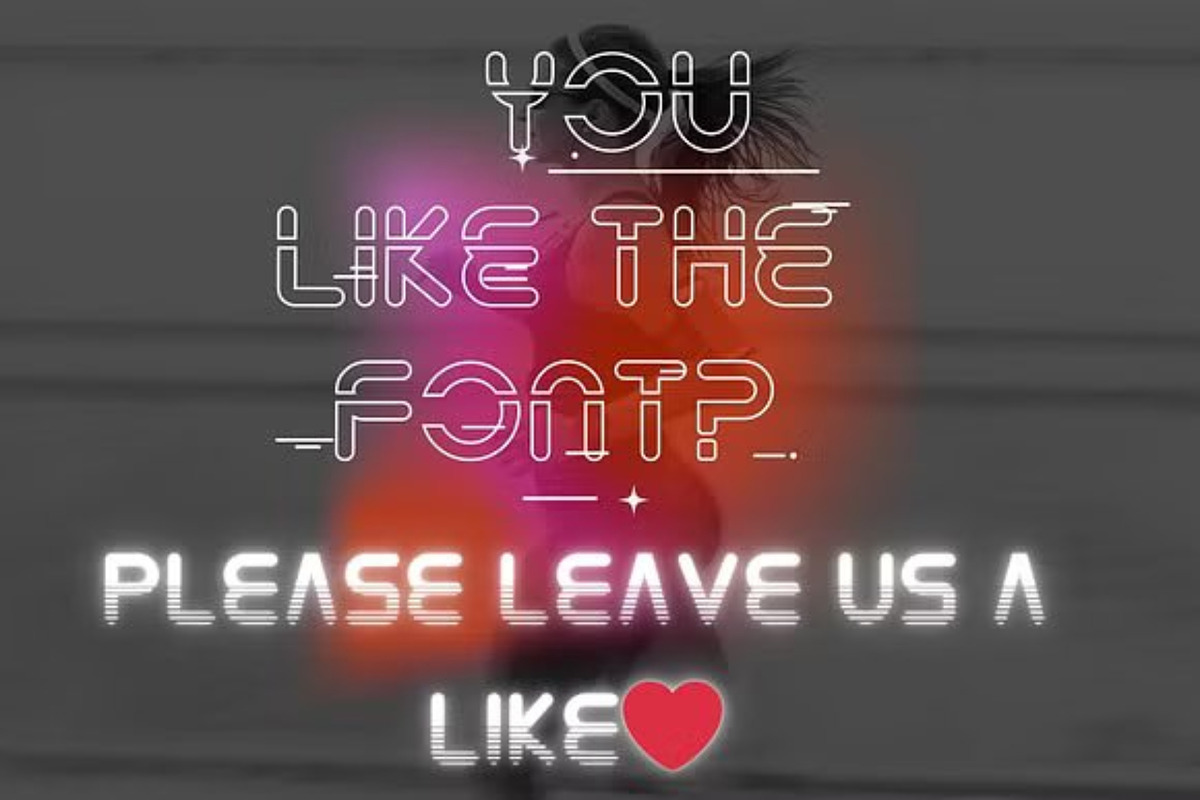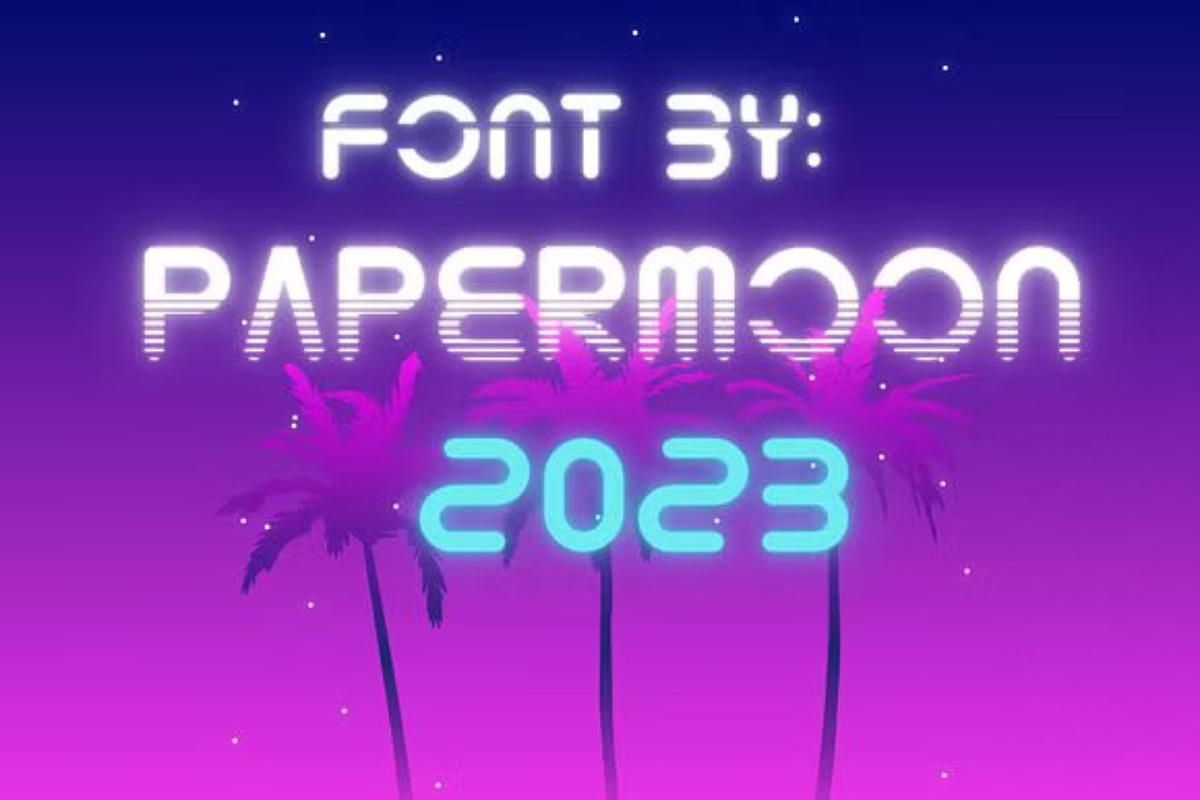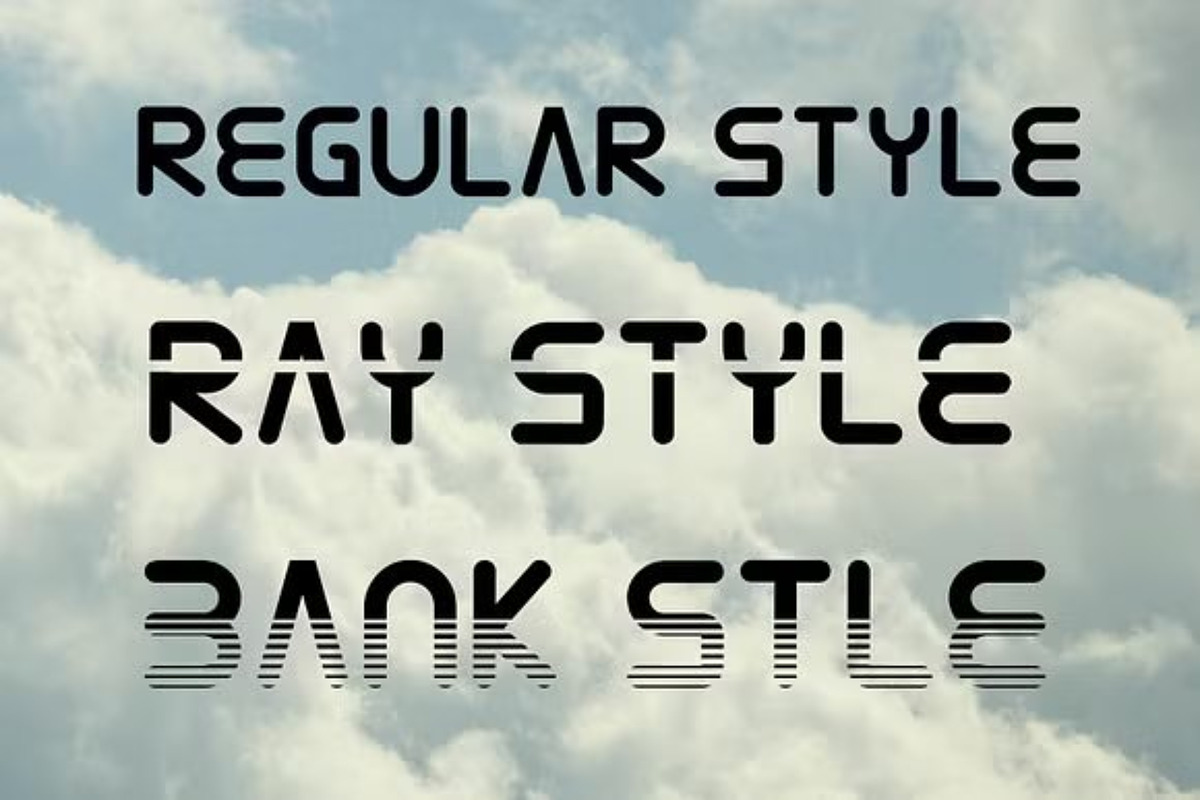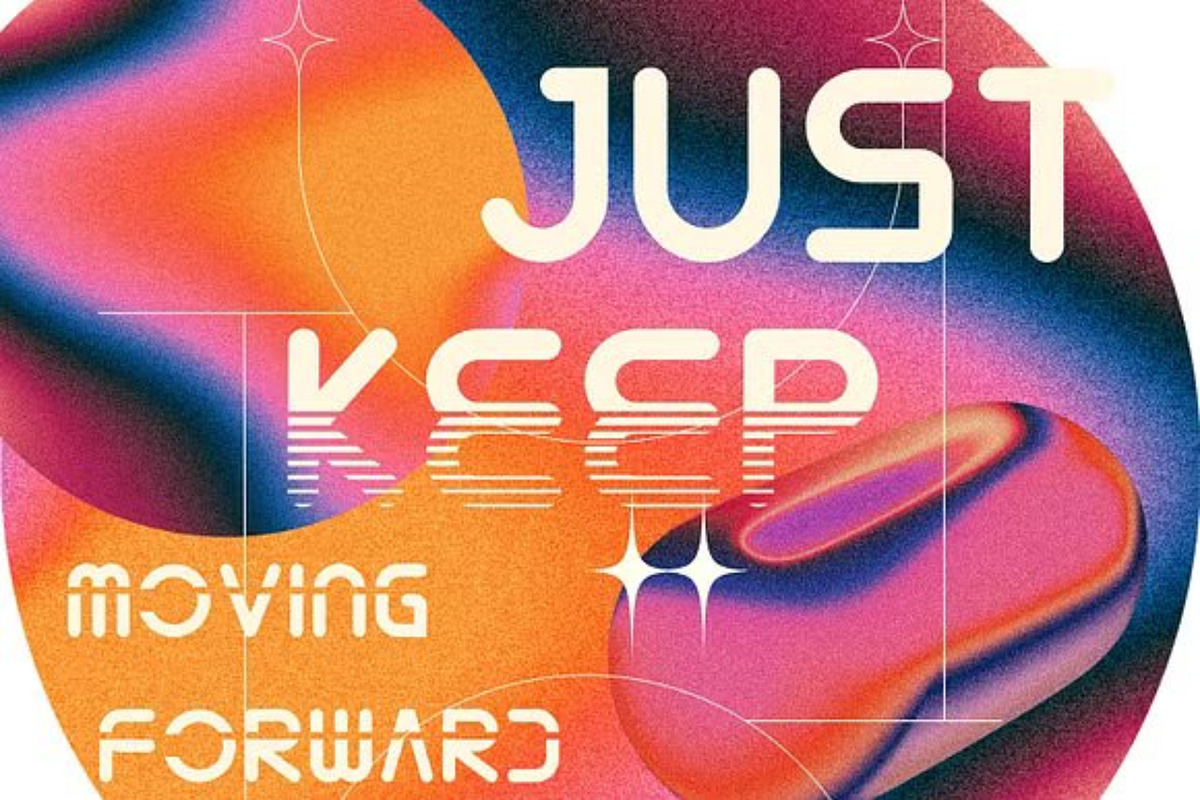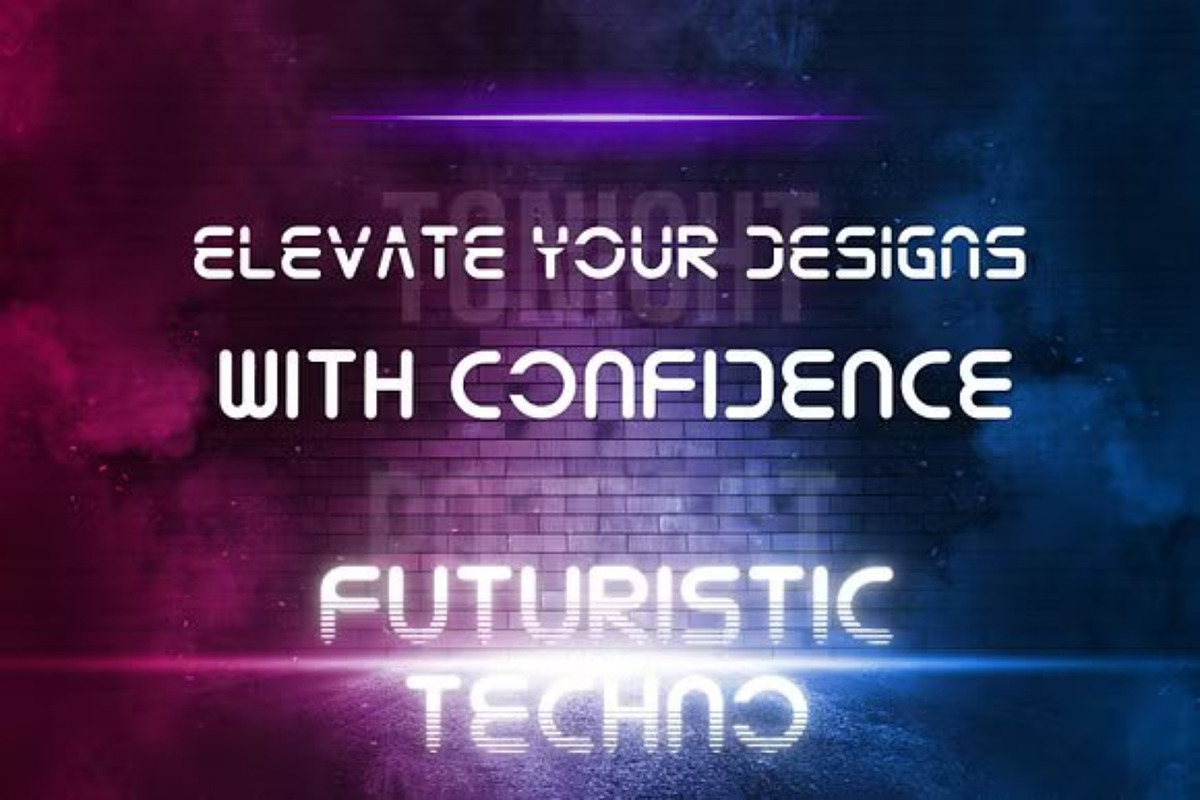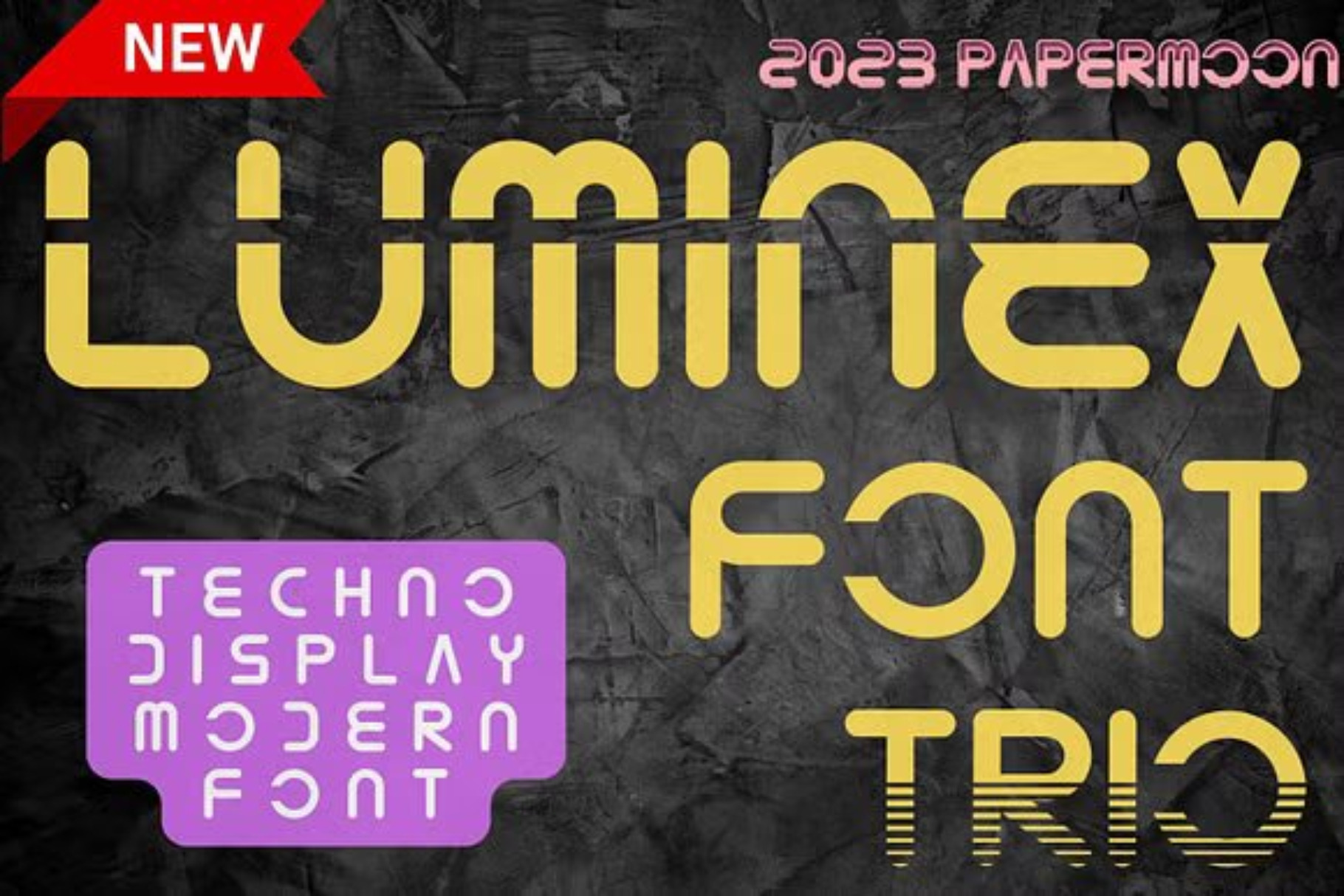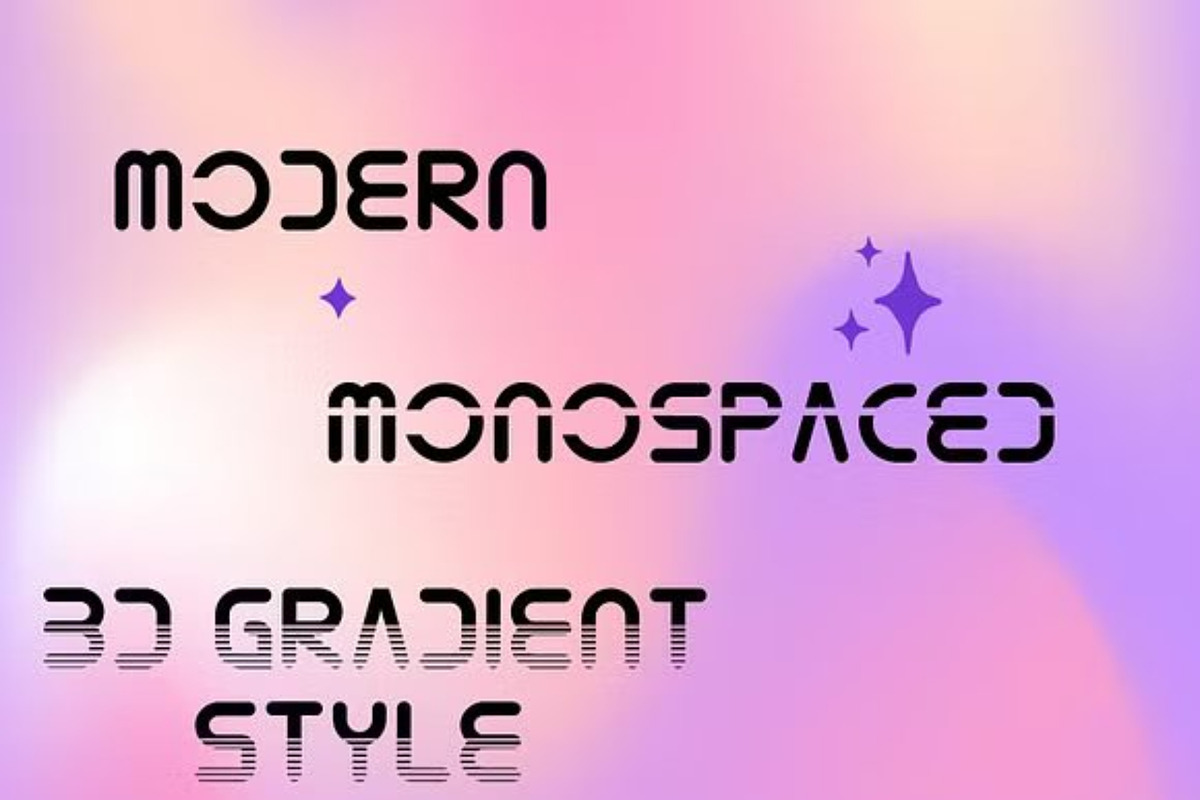
Luminex Modern Font Trio
Introducing Luminex Font: The Futuristic Techno Typeface for Modern and Dynamic Designs
We proudly present our latest innovation: Luminex Font! This cutting-edge, decorative typeface is designed for the future of modern design projects. Luminex offers three versatile styles—Modern, Monospaced Laser, and Gradient 3D—to suit a variety of creative applications. It also supports full multilingual characters, ensuring its adaptability for diverse language needs and global accessibility.